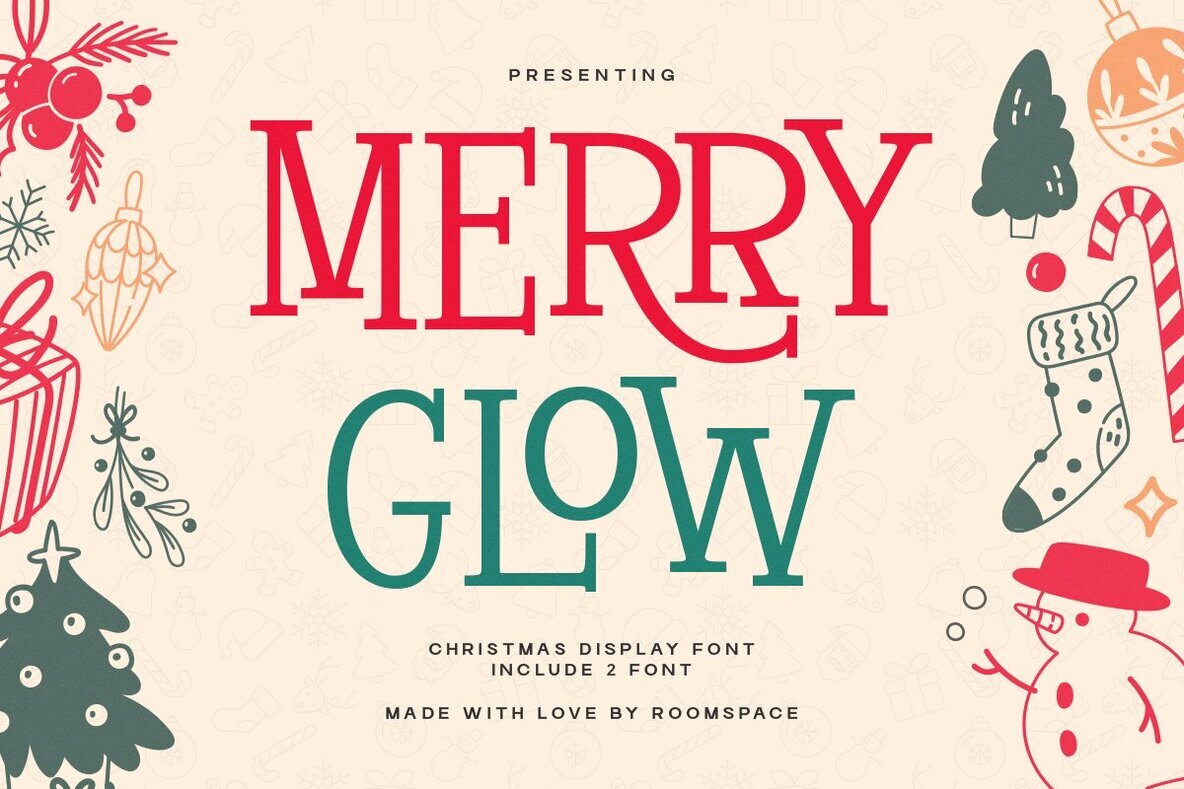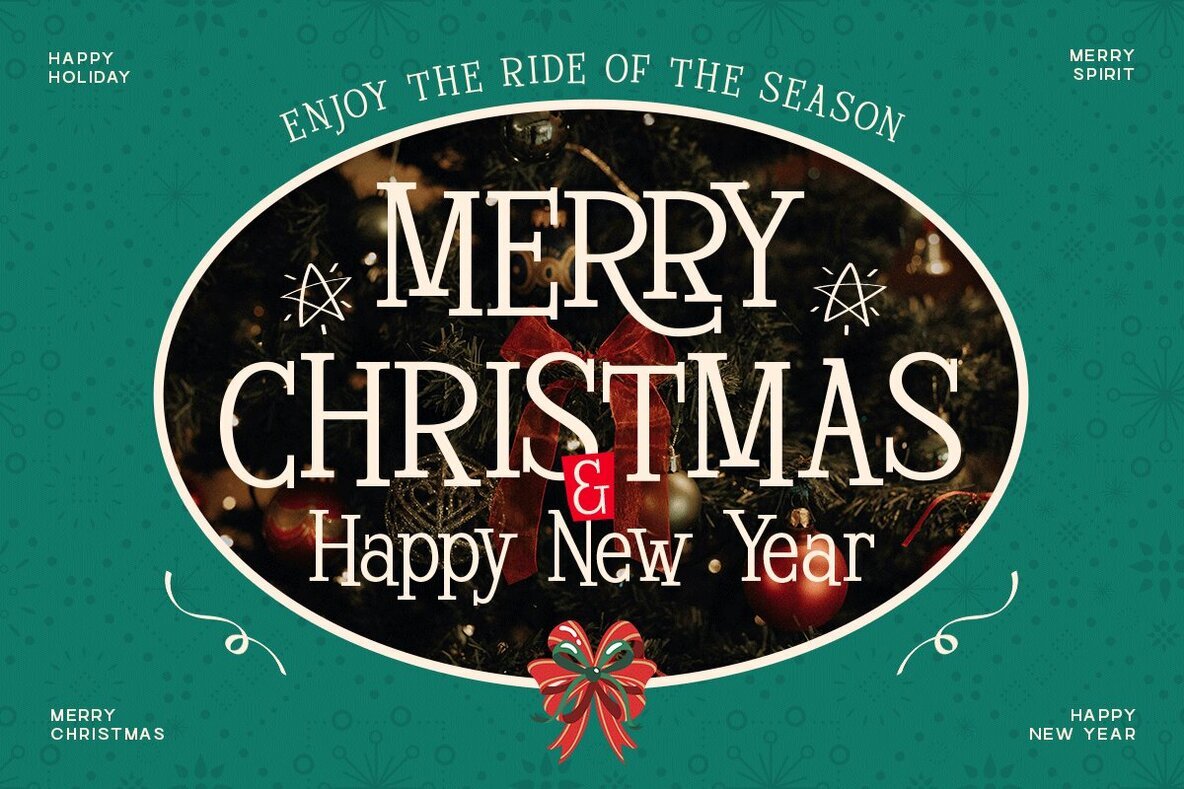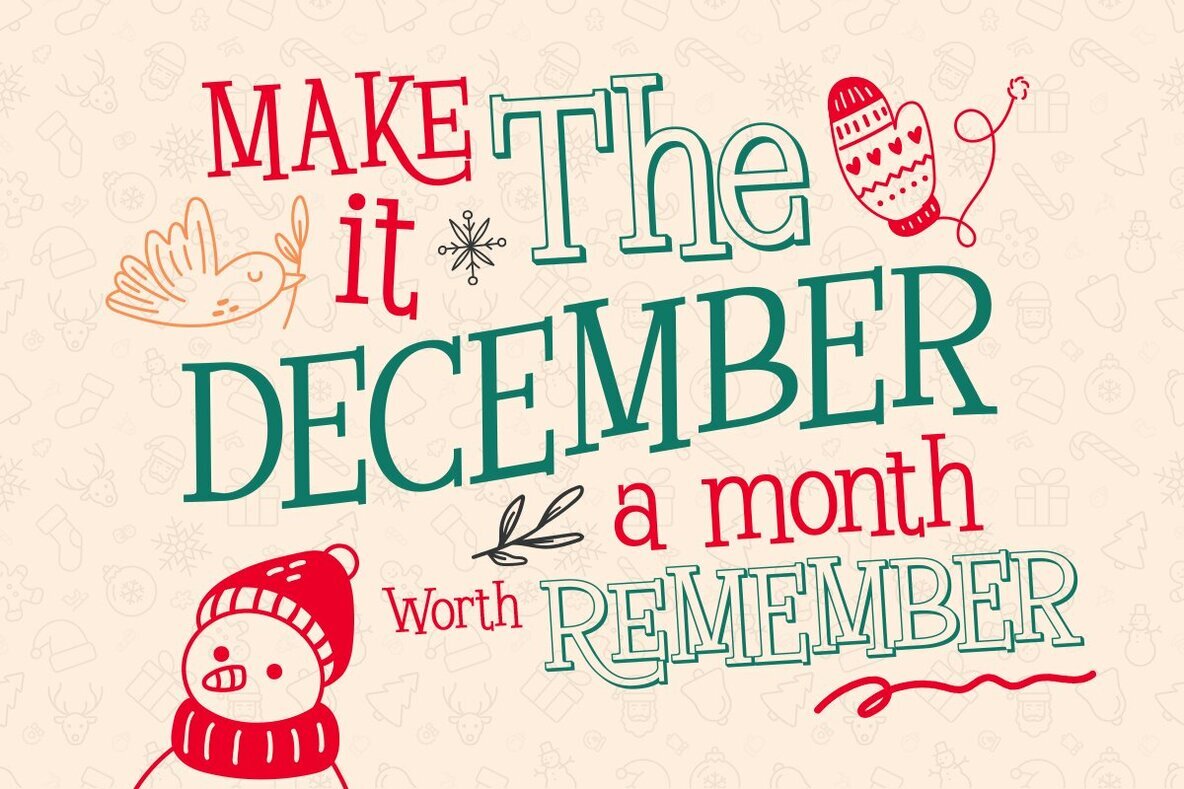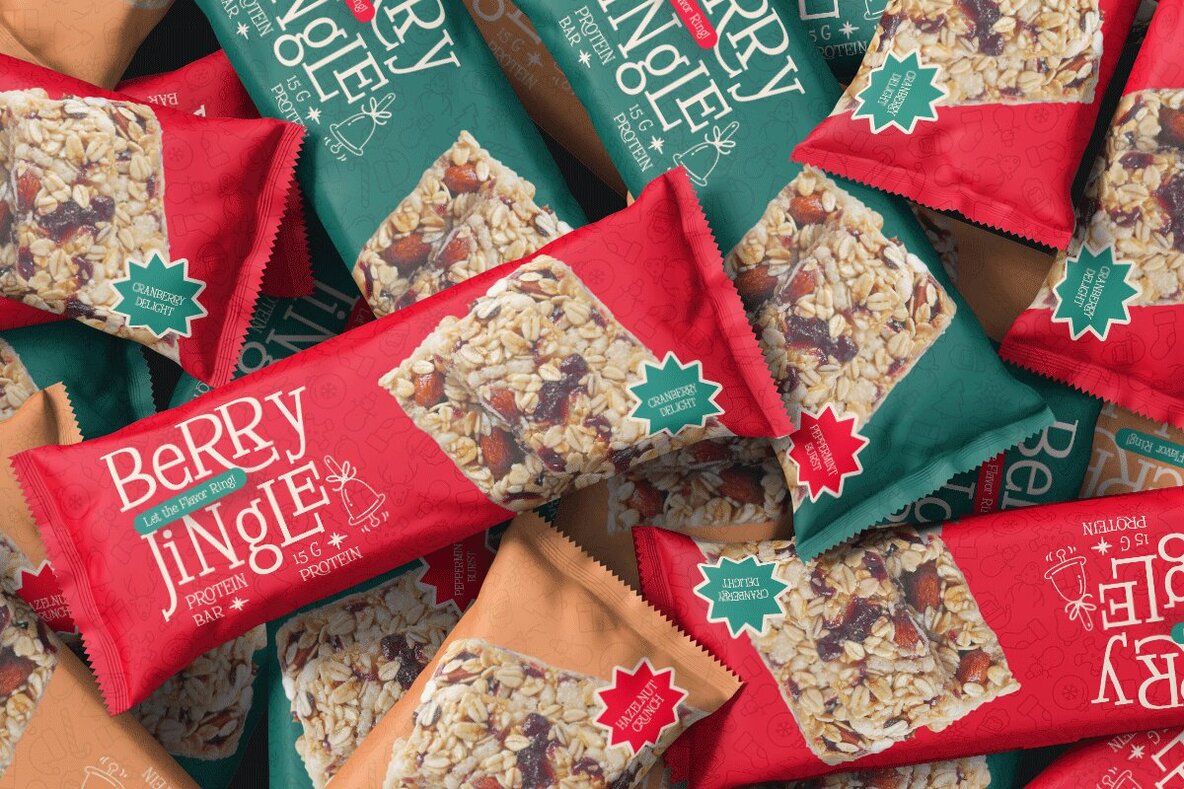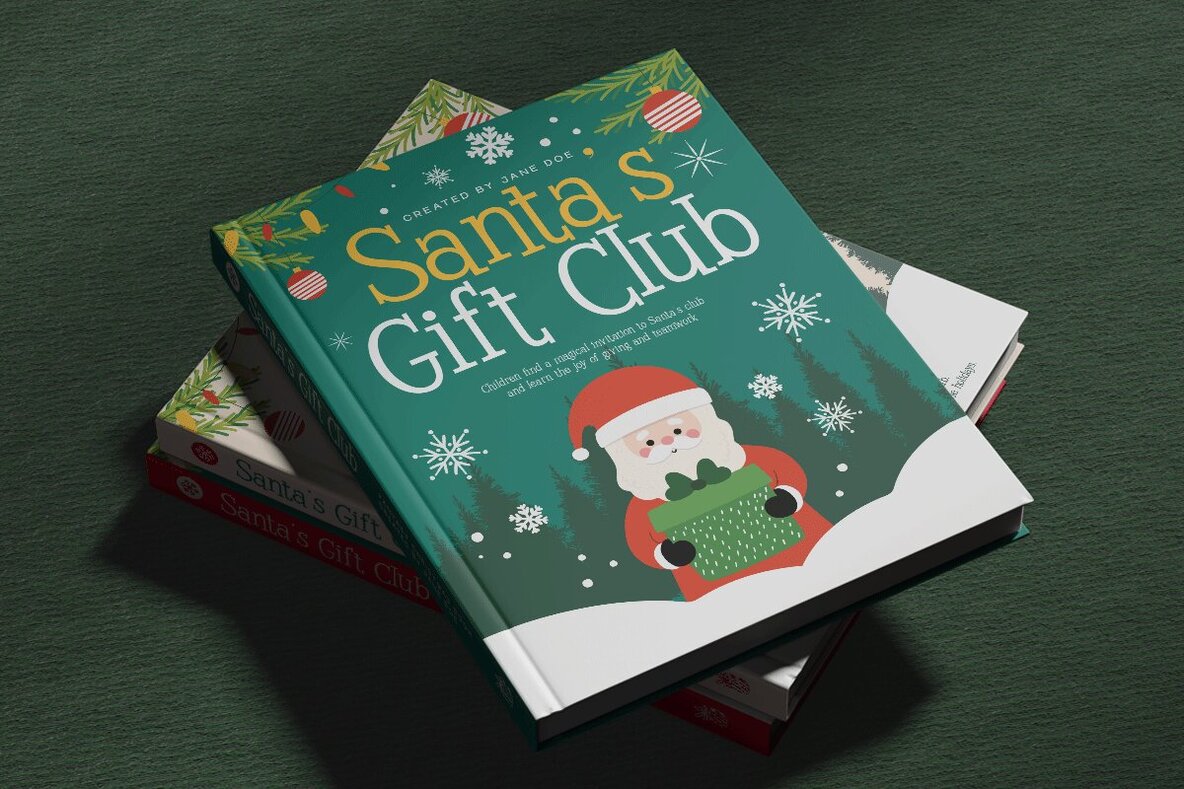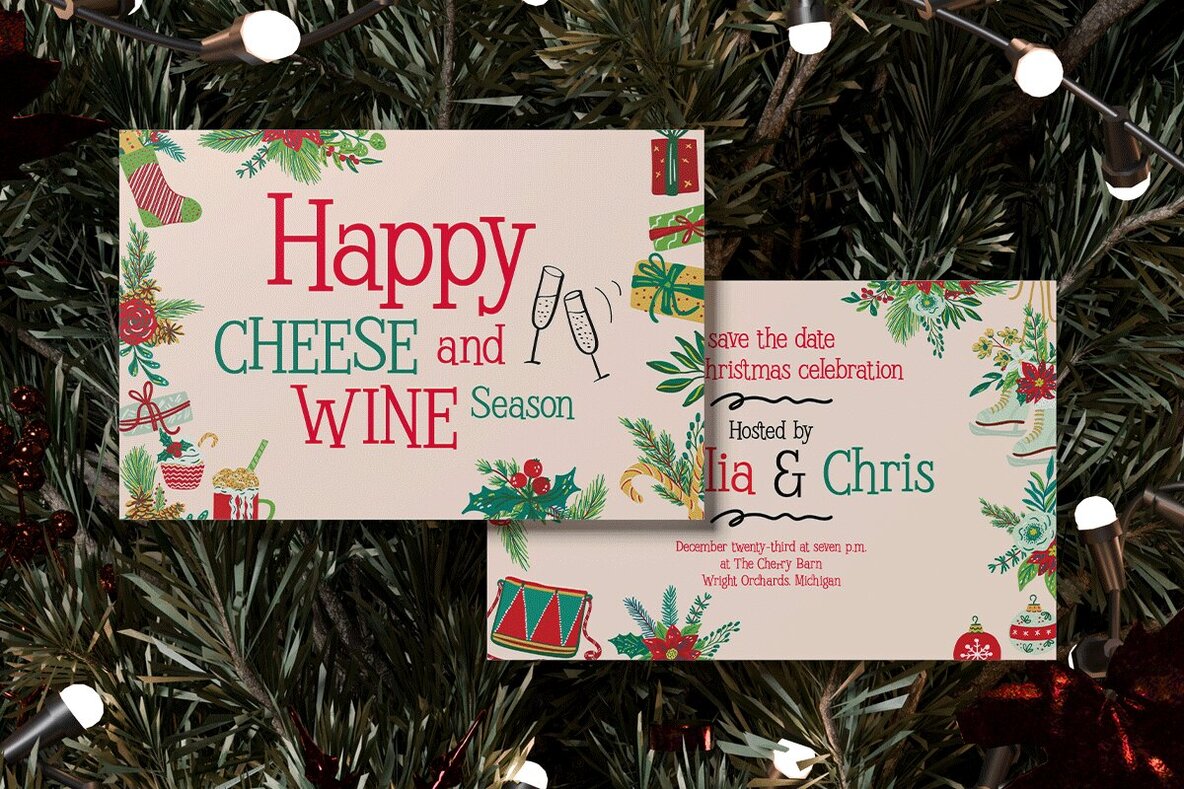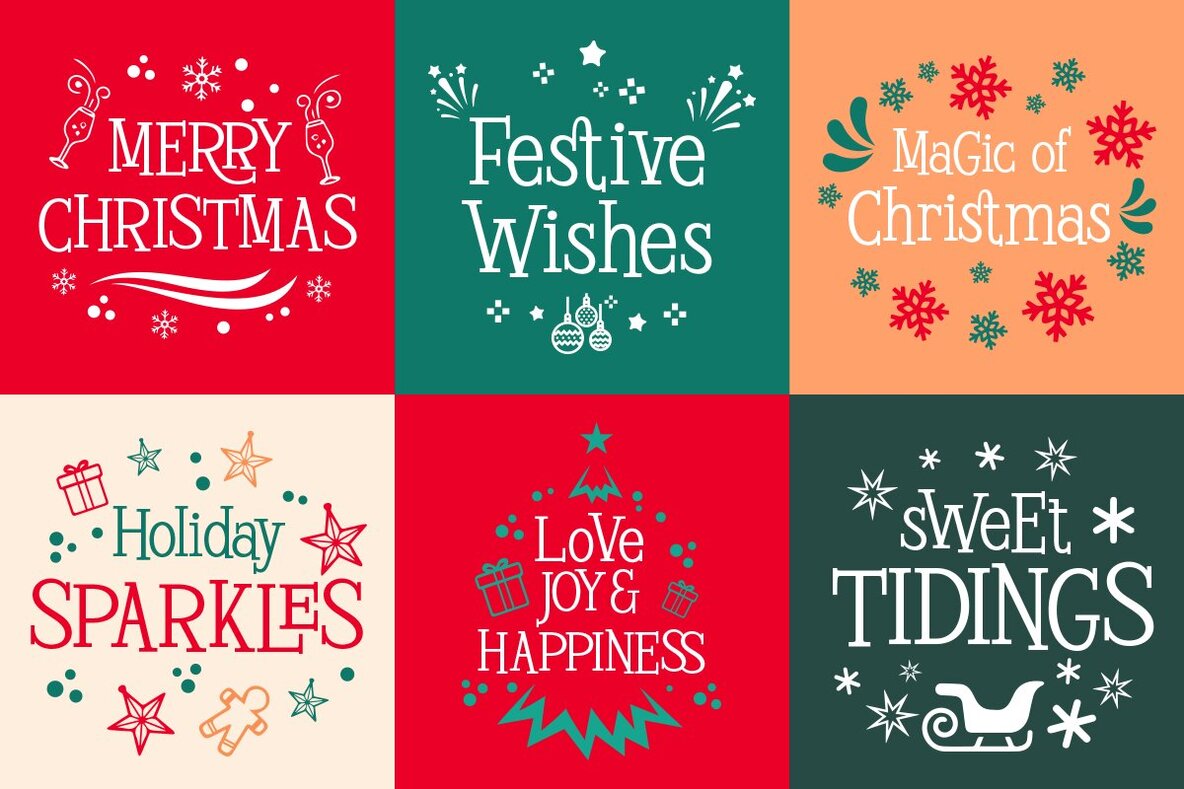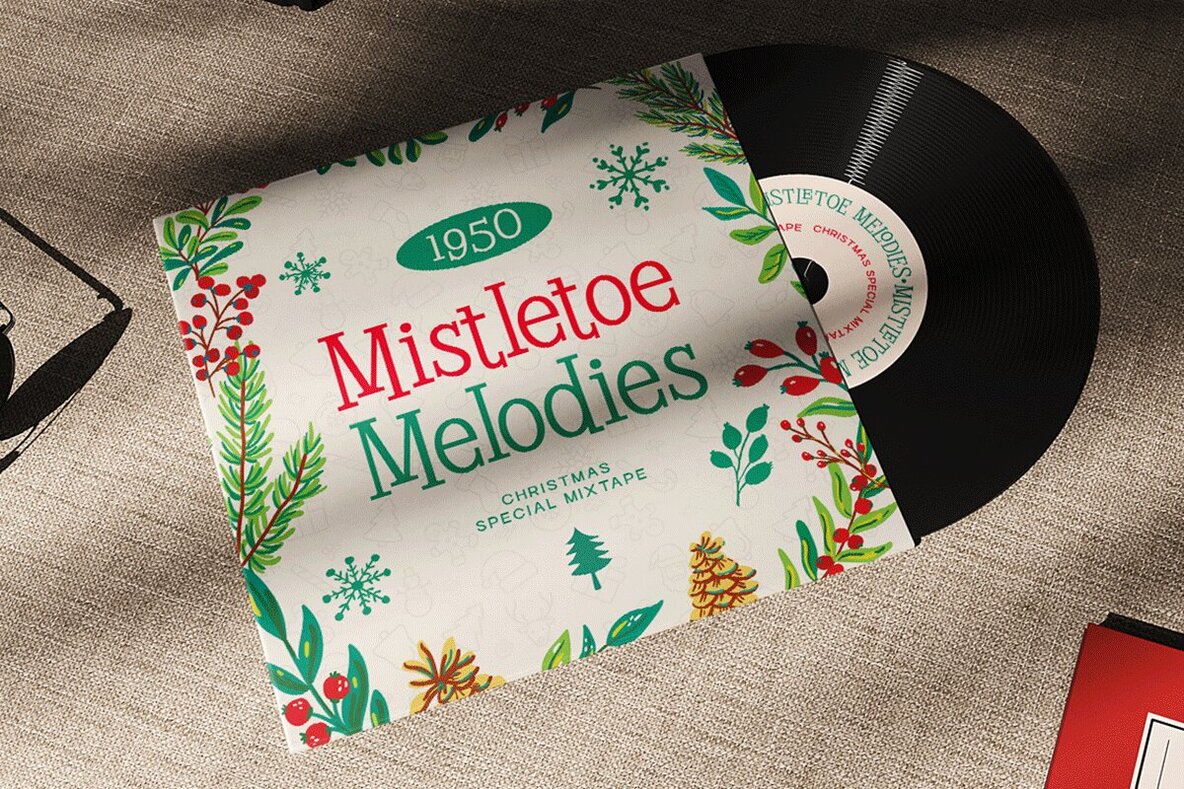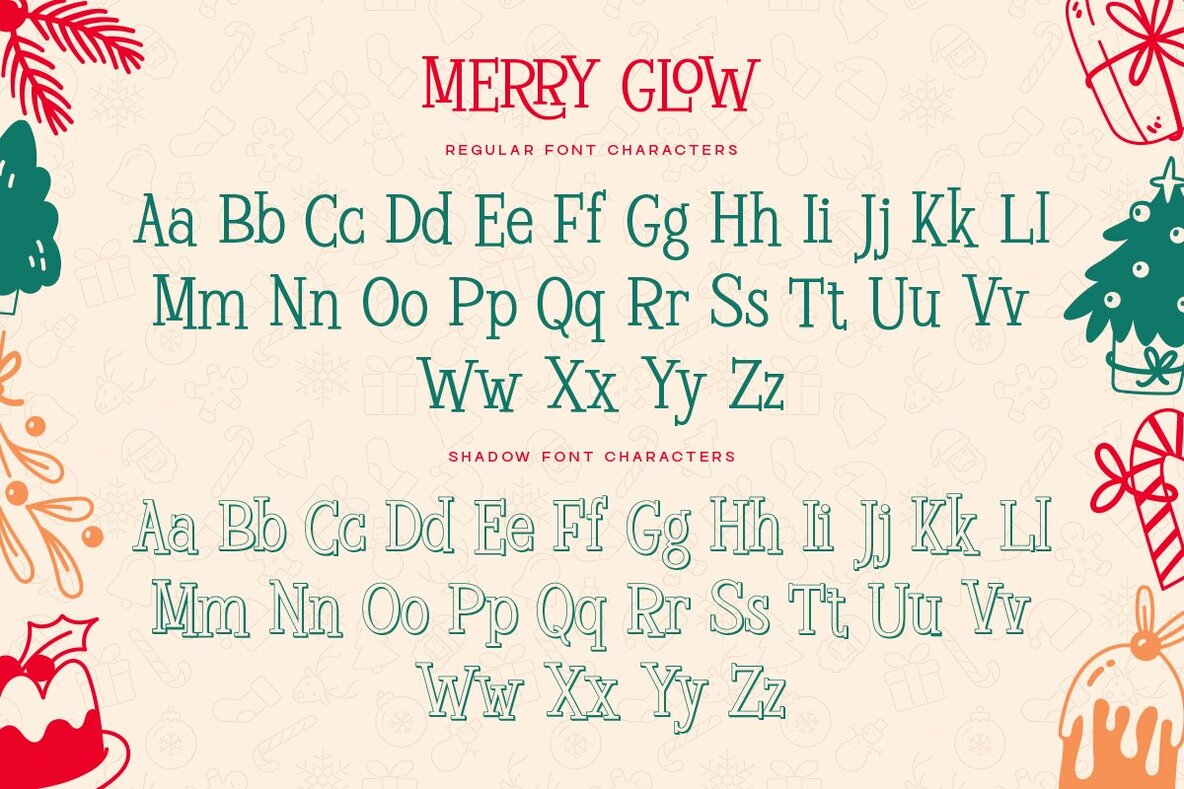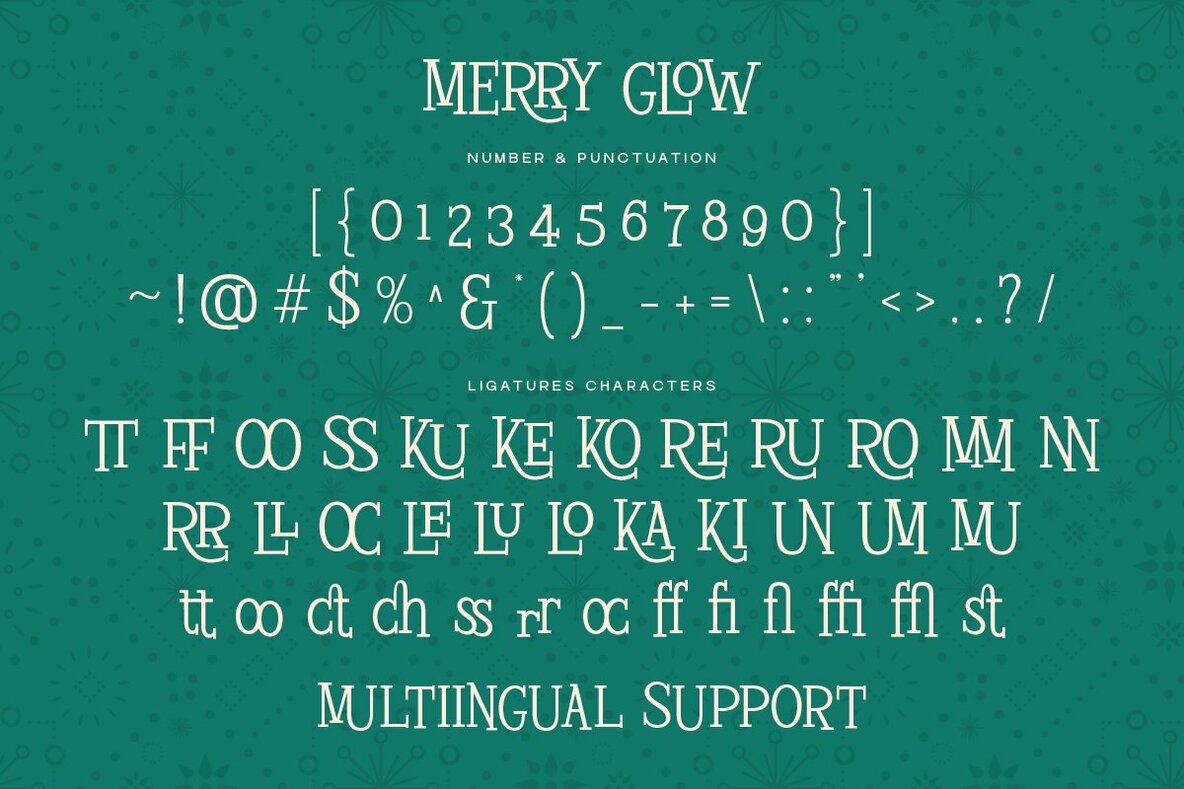
Merry Glow Font
Merry Glow brings a touch of festive charm to graphic design projects. This Christmas display serif features classic and decorative variants, combining vintage-inspired letterforms with subtle holiday accents. Each curve and flourish evokes the warmth and coziness of seasonal gatherings, making this font an apt choice for holiday branding, cards, and creative digital layouts. The cheerful yet sophisticated style resonates with design professionals seeking a nostalgic yet contemporary typeface for festive campaigns. Merry Glow stands out through its joyful character and decorative detail, offering versatility across both classic and embellished letterforms. Its adaptable look suits a range of creative contexts—from intricate packaging to social media graphics—where warmth and vintage charm are essential. This font’s multilingual support makes it compatible with diverse projects, while the mix of uppercase and lowercase glyphs allows for expressive typography throughout the holiday season.Merry Glow: Playful Serif Fonts for Holiday Design